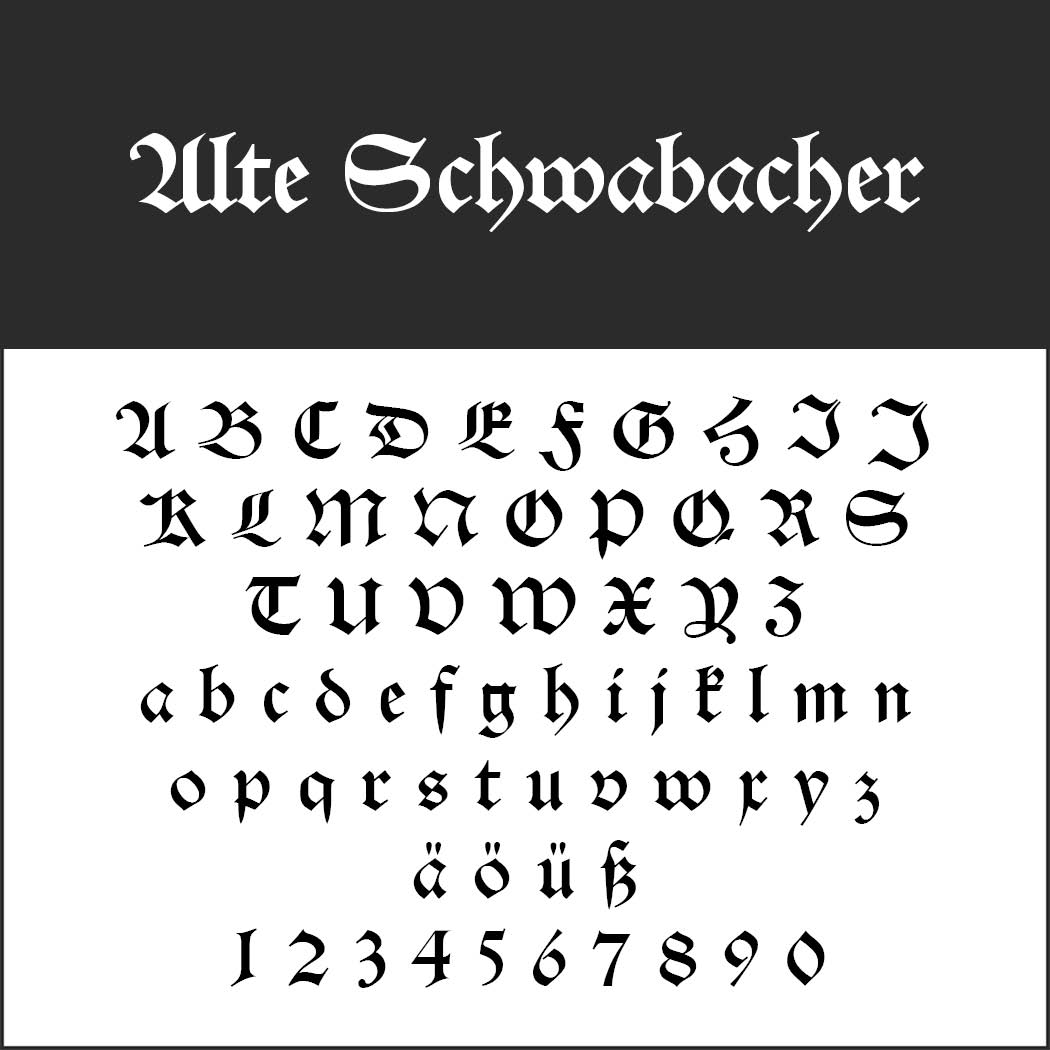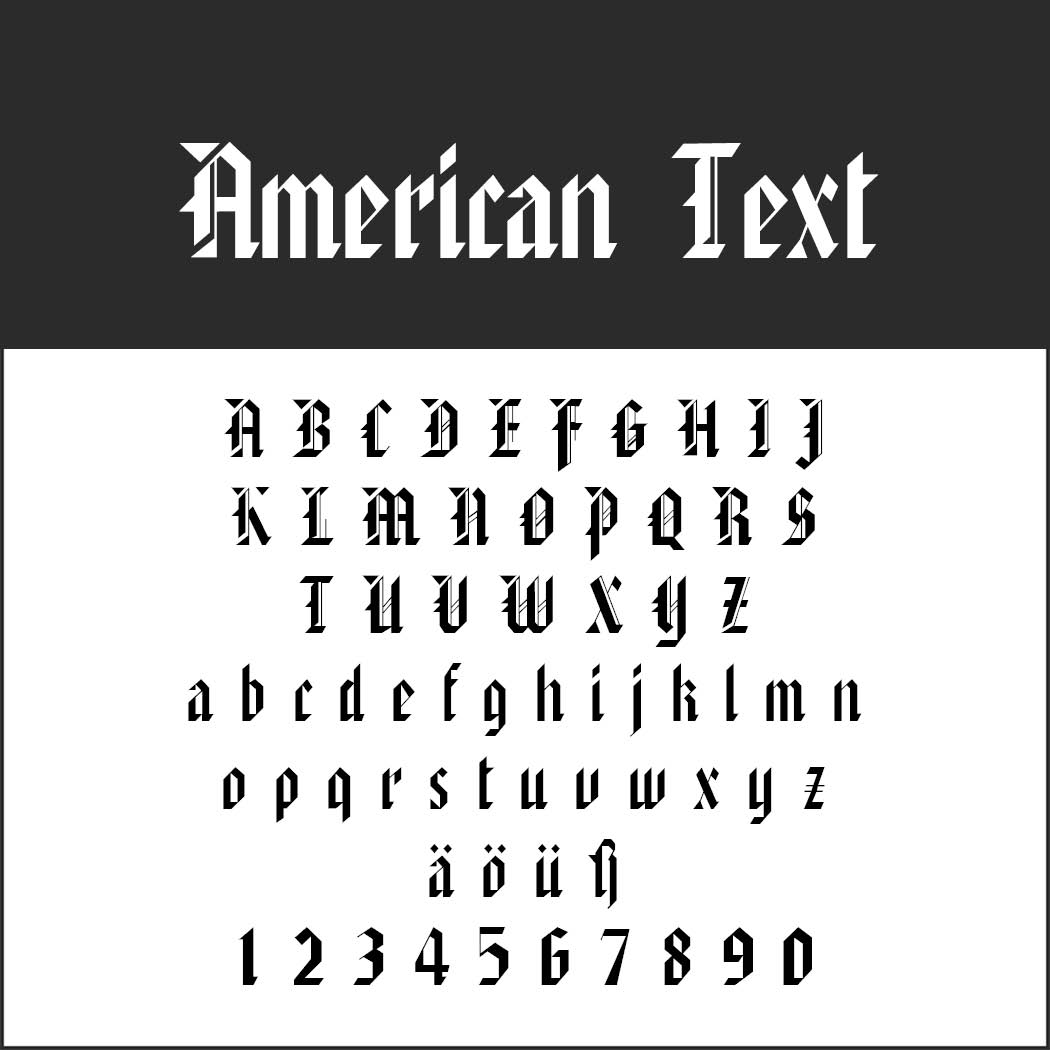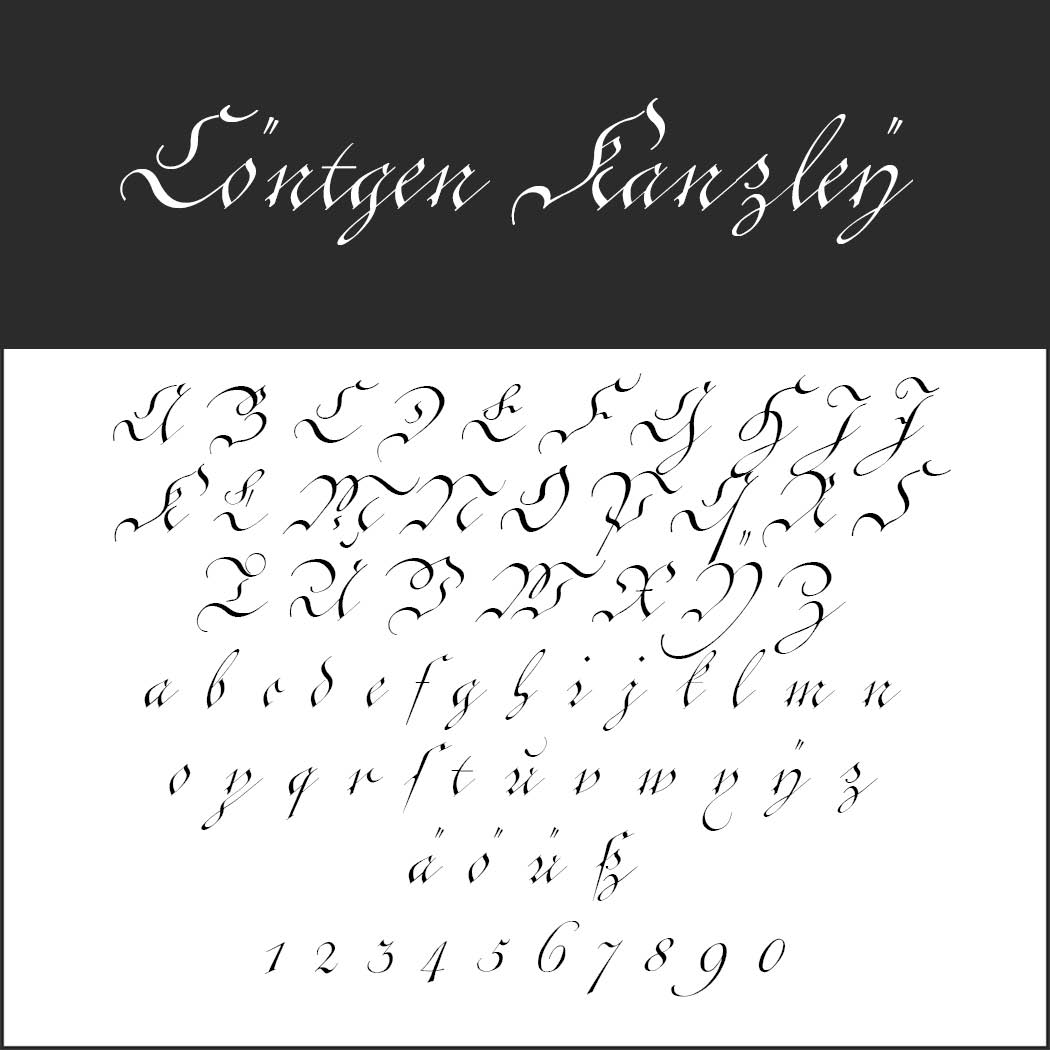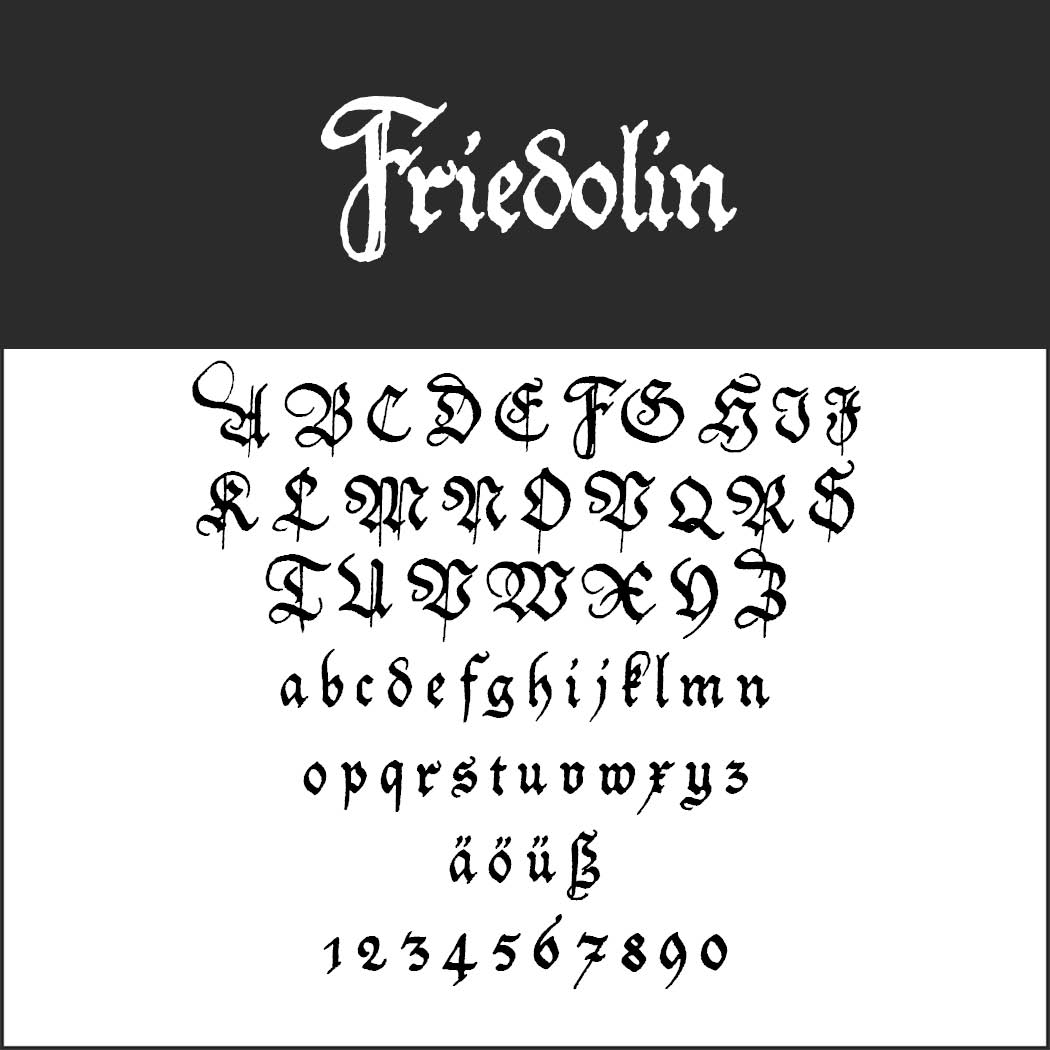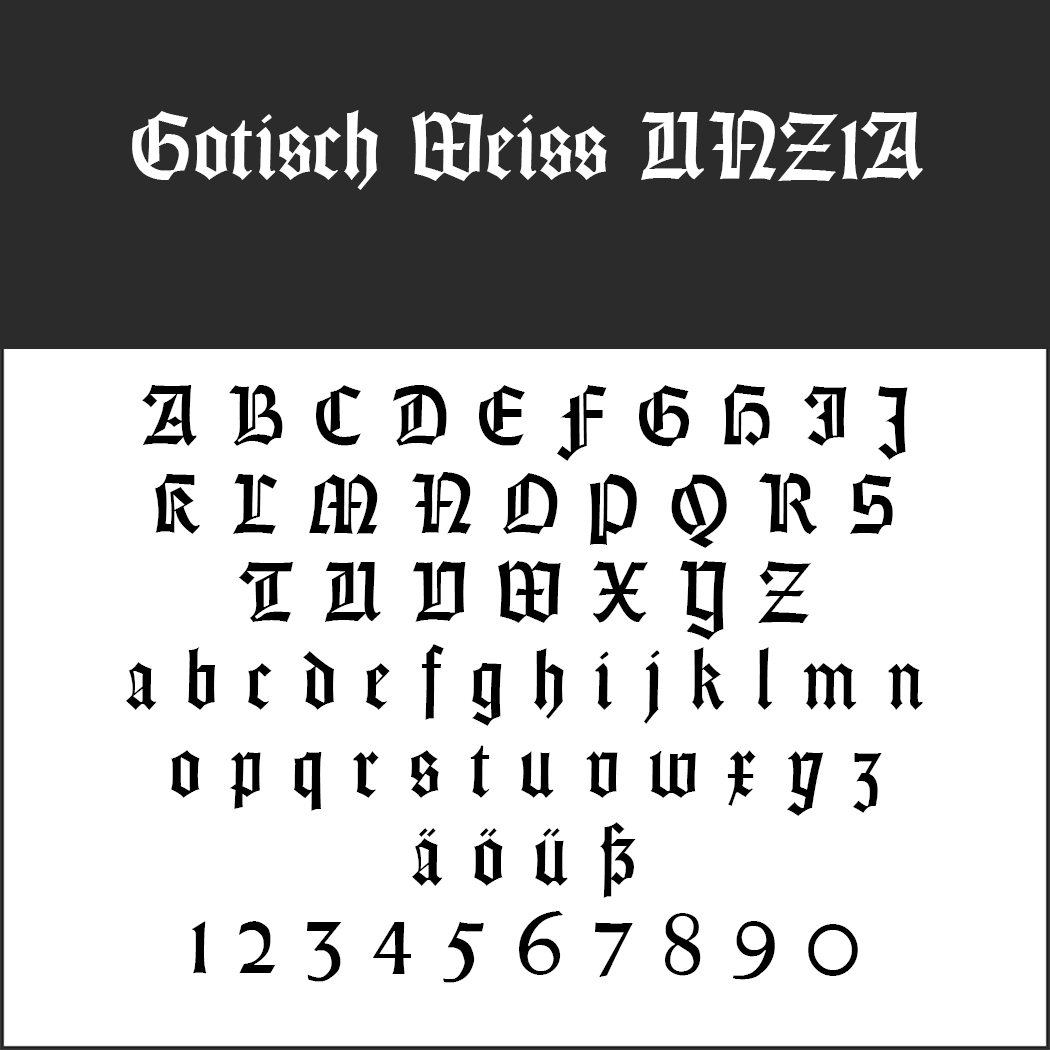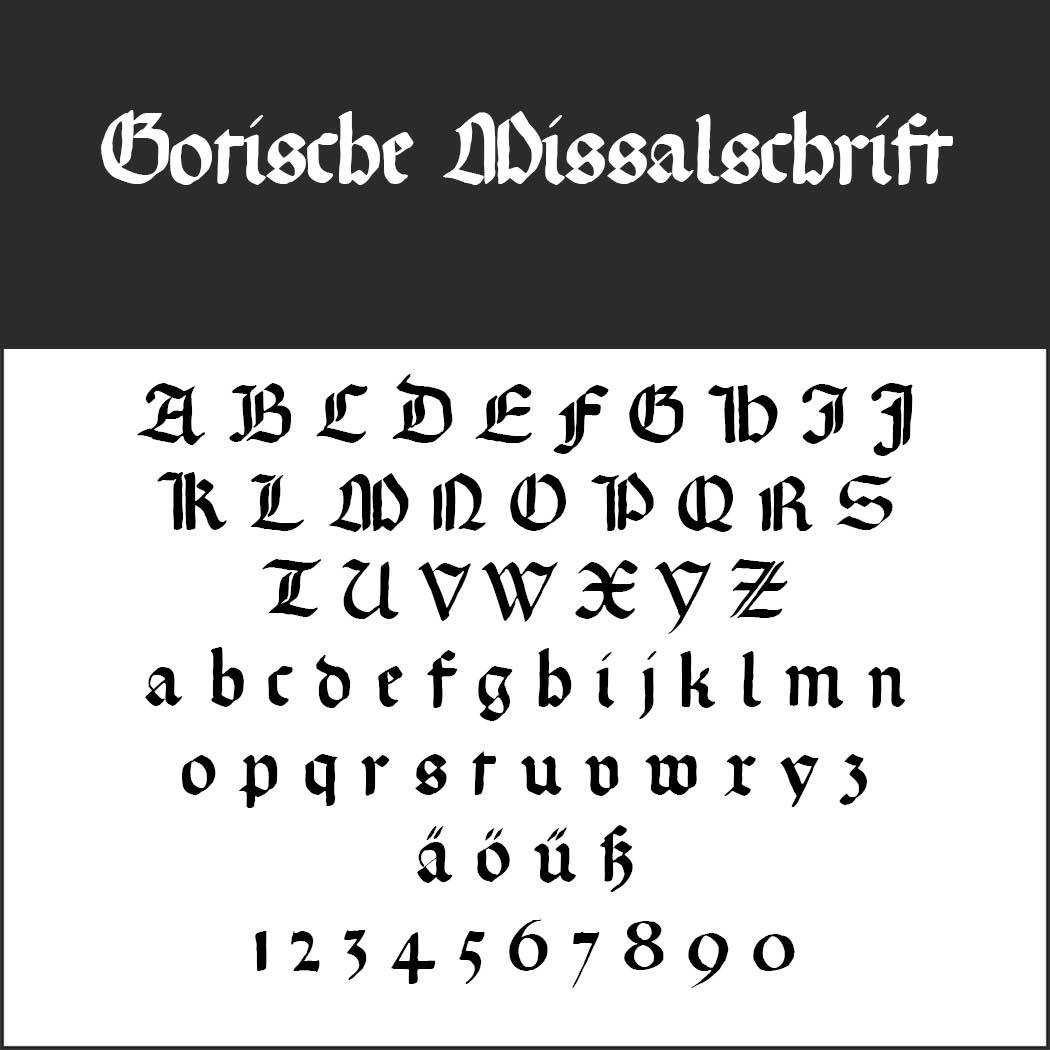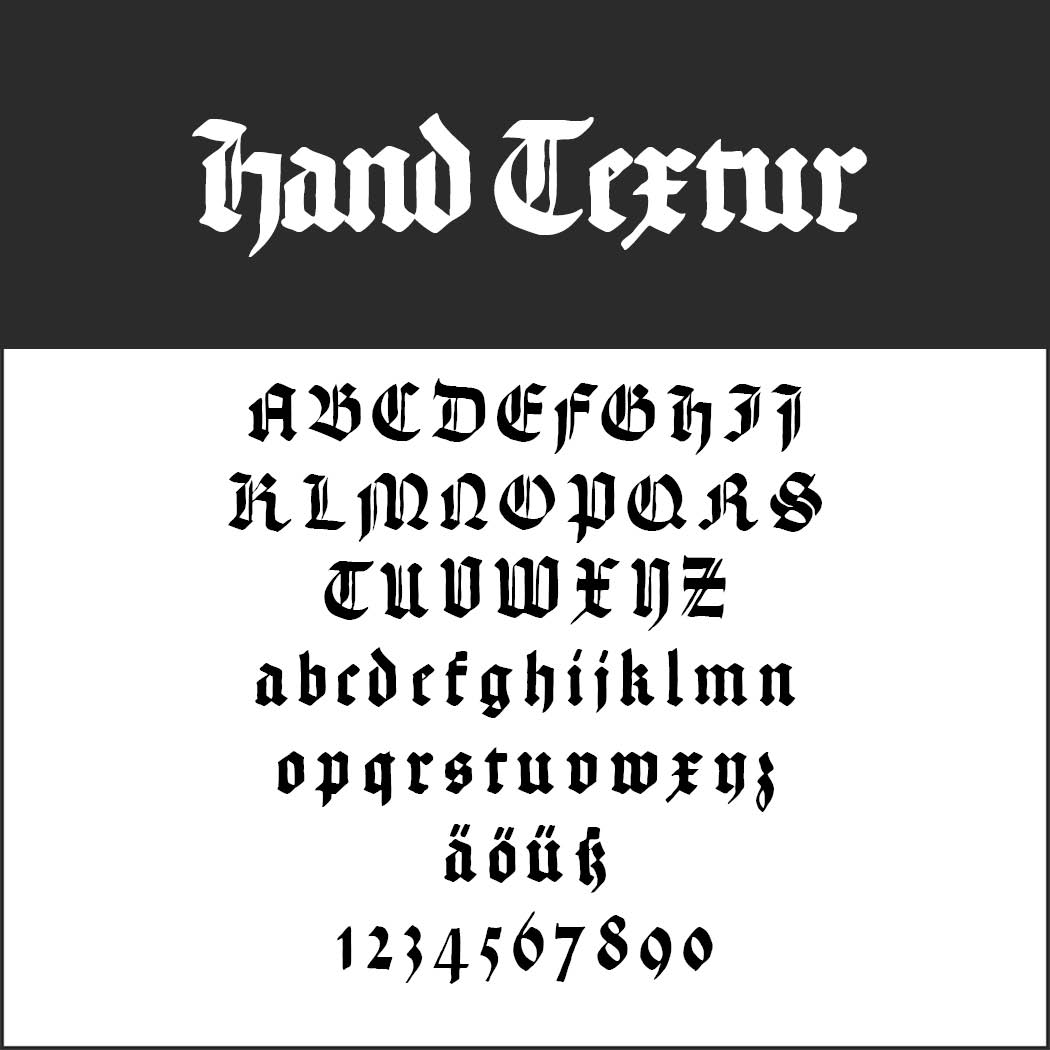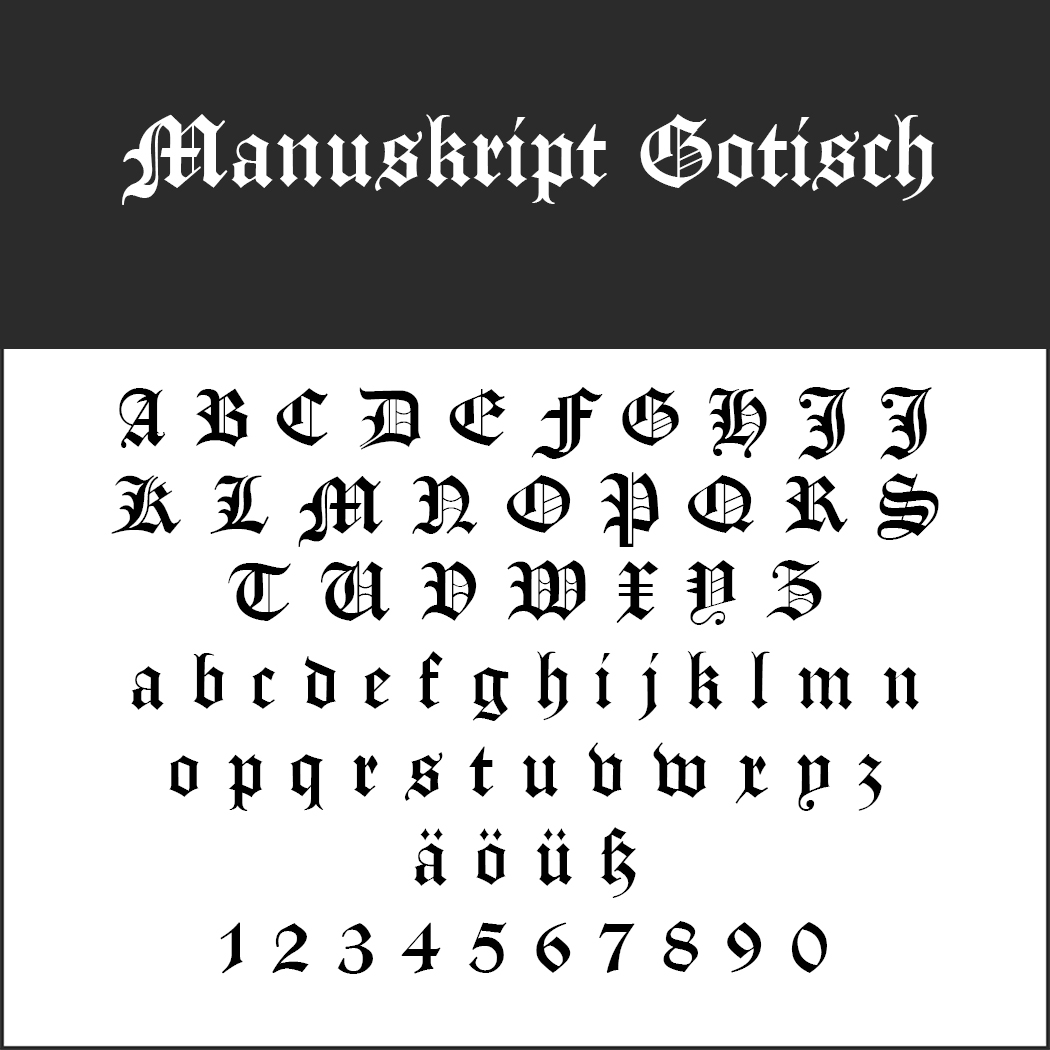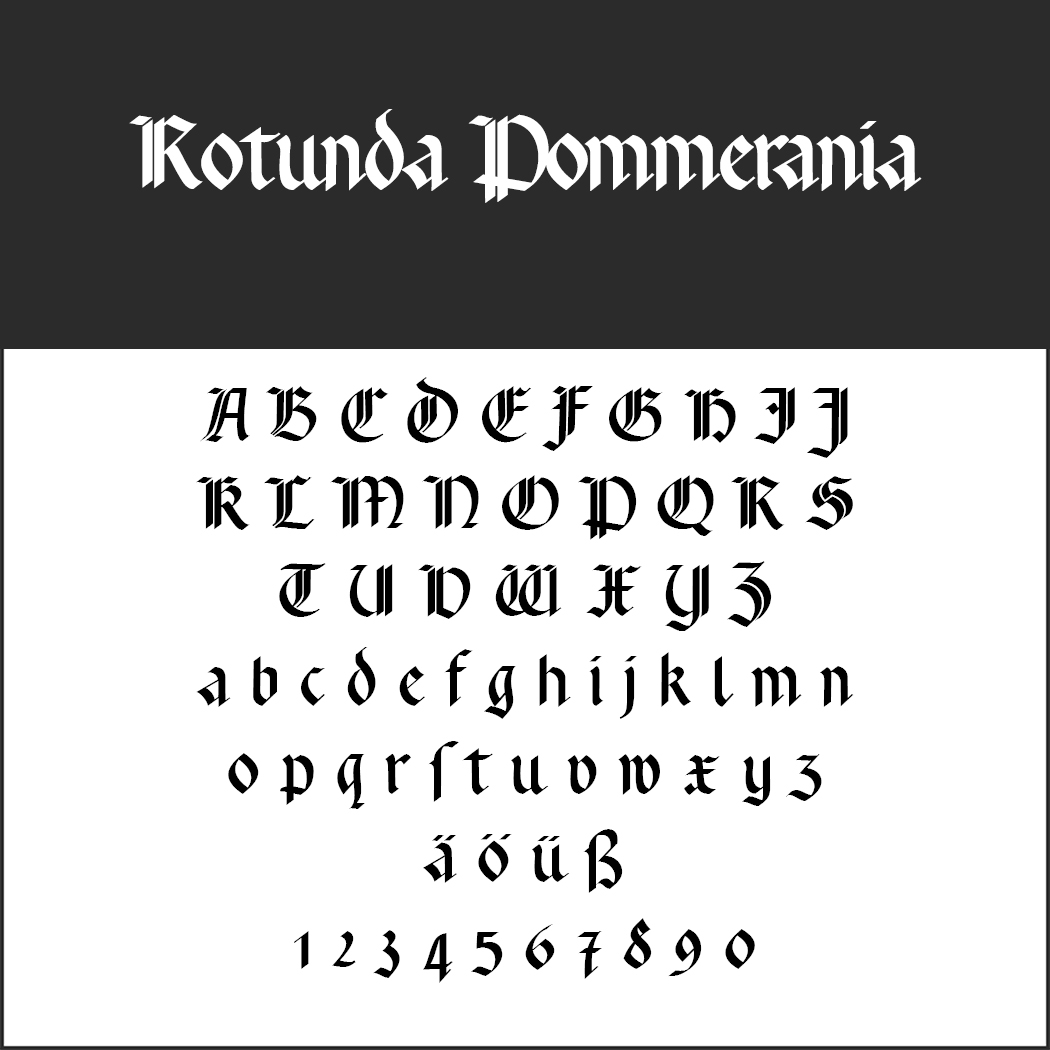
Pure nostalgia: Gothic fonts you can download for free
Sometimes you want to lend a medieval look to your designs, for example, when printing posters for a medieval festival or historical theatre play. All these fonts are effective attention-grabbers. Continue reading to learn which free Gothic fonts are ideal to create that WOW effect.
Based on early manuscript lettering, blackletter typefaces (also referred to as Gothic, Fraktur or Old English) are characterised by broken up font lines. Having evolved in Western Europe from the mid-12th century, they remained popular in Germany until the early 20th century. However, these fonts are also laden with nationalist connotations because they were heavily used by the Nazis (and are still popular with nationalists today). Therefore, blackletter typefaces should be used with care and only if they fit in with the overall context.
Blackletter fonts are difficult for modern eyes to read. Many are excessively ornate and have special text layout requirements (such as alternating the two different “s”). So these typefaces are not the right choice for body text but are best used for headings and titles to convey a sense of nostalgia. Our roundup of blackletter typefaces includes old Fraktur typefaces such as Schwabacher and Rotunda as well as modern interpretations like American Text.
Blackletter fonts – free for commercial use
A sample of the Ute Schwabacher typeface shown in a blackletter style, displaying uppercase and lowercase letters, German umlauted characters, and numbers 0-9 on a white background.Alte Schwabacher
Rotunda Pommerania font sample showing the typeface name in stylized text, followed by uppercase and lowercase Gothic-style letters, special characters (ä, ö, ü, ß), and numbers 0–9 on a white background.Rotunda Pommerania
A blackletter typeface sample titled Gotisch Weiss UNZ1A displays uppercase and lowercase letters, German characters (ä, ö, ü, ß), and numbers 0-9 in a Gothic style on a white background.Gotisch Weiss UNZ1A
A character set display for the Manuskript Gotisch font, showing uppercase and lowercase letters, numbers 0-9, and special characters ä, ö, ü, ß in a blackletter Gothic style.Manuskript Gotisch
Gothic-style font sample showing uppercase, lowercase, special characters (ä, ö, ü, ß), and numbers 0–9, with Gotische Missalschrift written at the top in the same ornate script.Gotische Missalschrift
A blackletter-style font sample named Friedolin displayed in white text. Includes uppercase, lowercase, special German letters (ä, ö, ü, ß), and numbers 0–9 in ornate, gothic script.Friedolin
A blackletter-style font sample titled hand Textur displays uppercase and lowercase alphabets, special characters ä, ö, ü, and numbers 0-9 on a black and white background.Hand Textur
A decorative calligraphy font sample titled Töntgen Kanzley, showing uppercase and lowercase alphabet letters and numbers 0–9 in elegant, flowing script on a white background.Cöntgen Kanzley
Image displaying the Anglican Text font in blackletter style, showcasing uppercase and lowercase letters, special characters (ä, ö, ü), and numbers 0-9 on a white background.AnglicanText
A reference chart displaying American Text in a bold Gothic font style with uppercase, lowercase, special characters (ä, ö, ü, ß), and numbers 0–9 in black on a white background.American Text